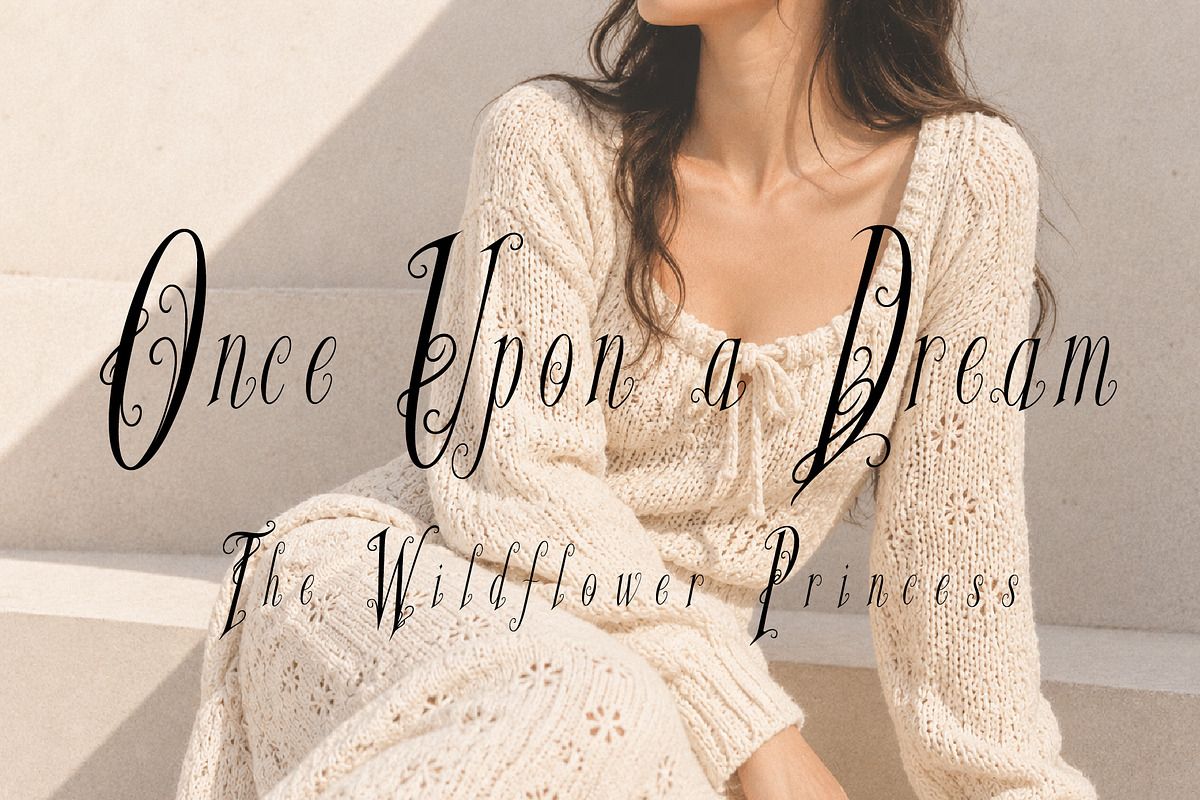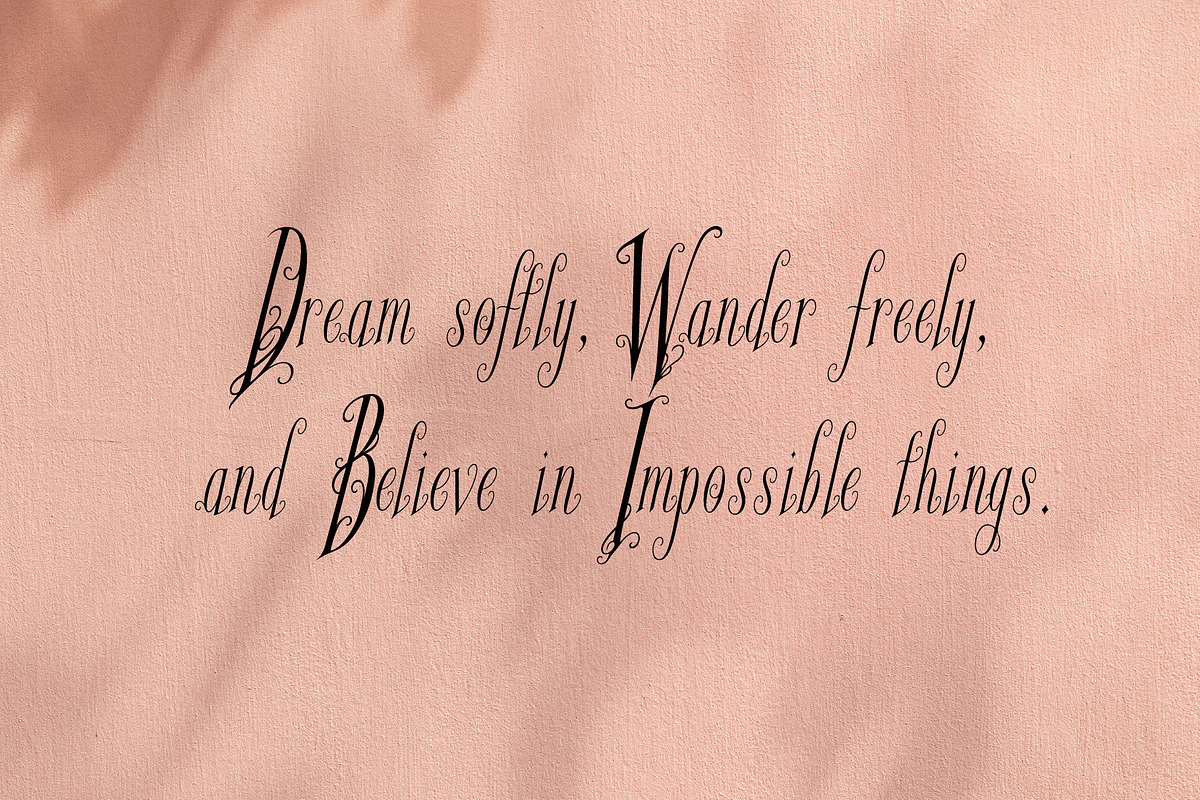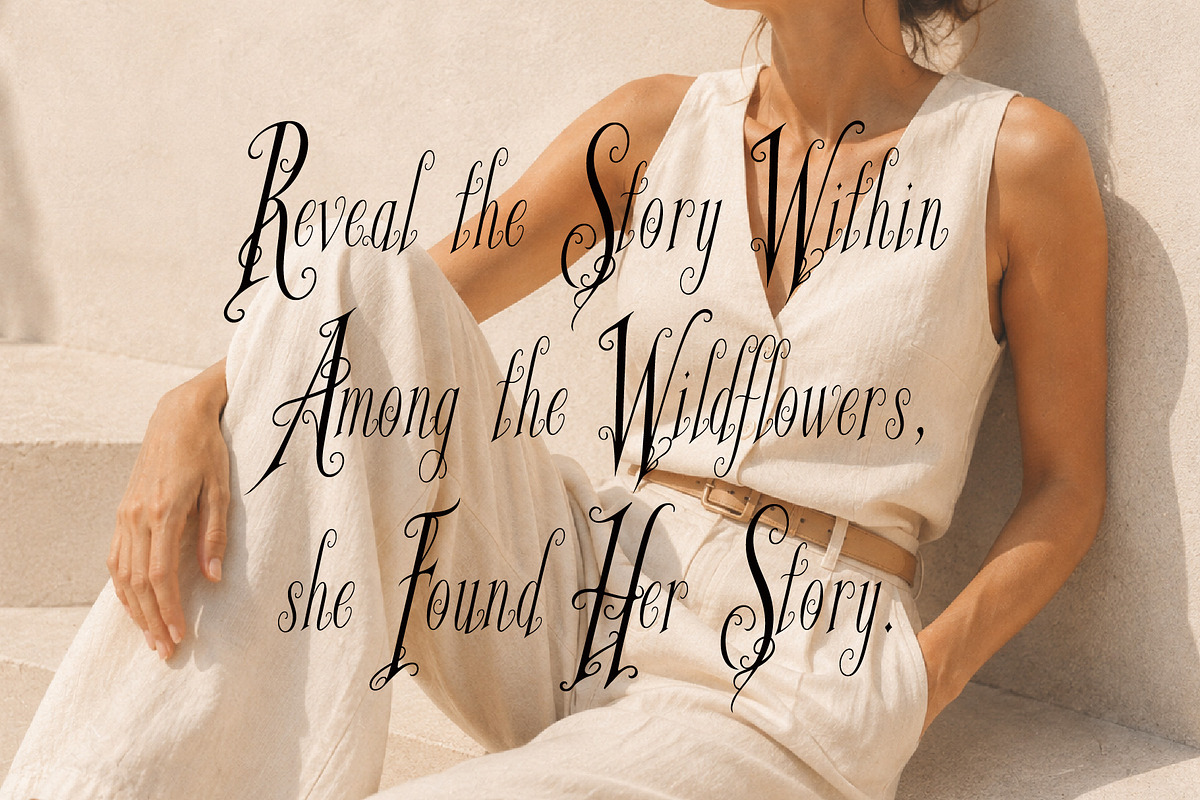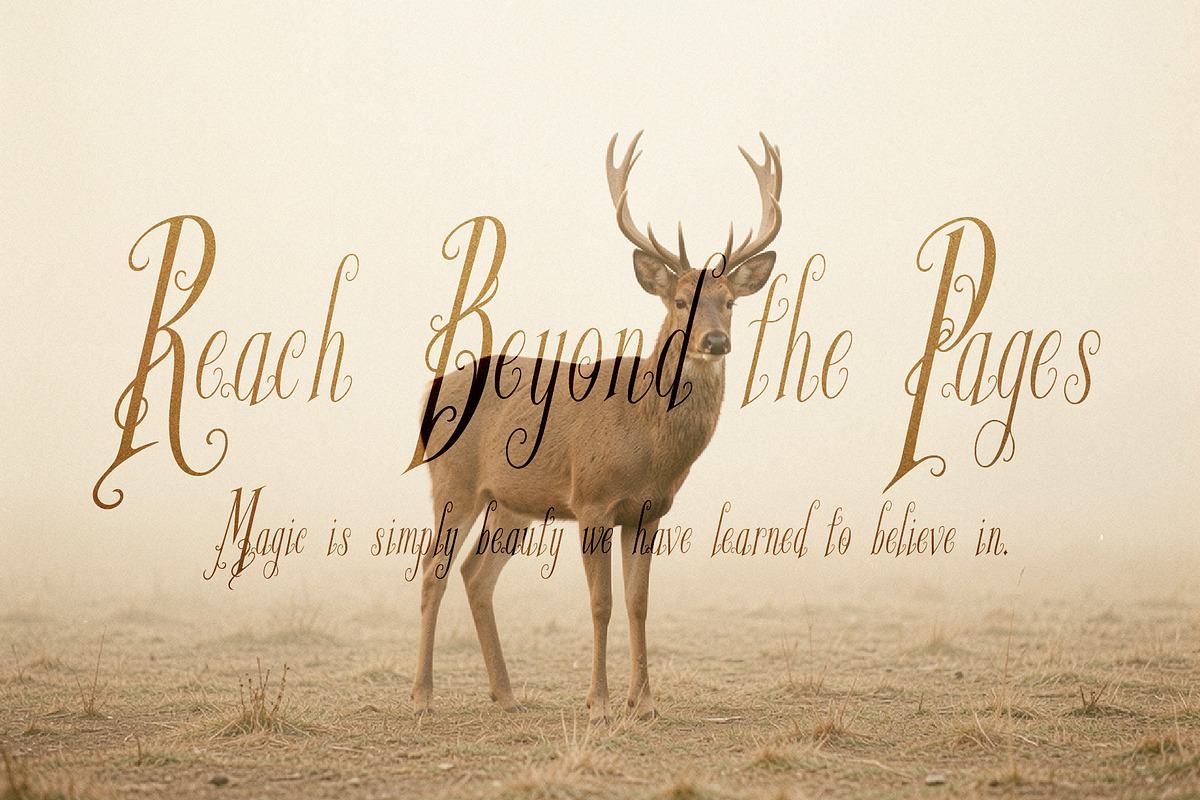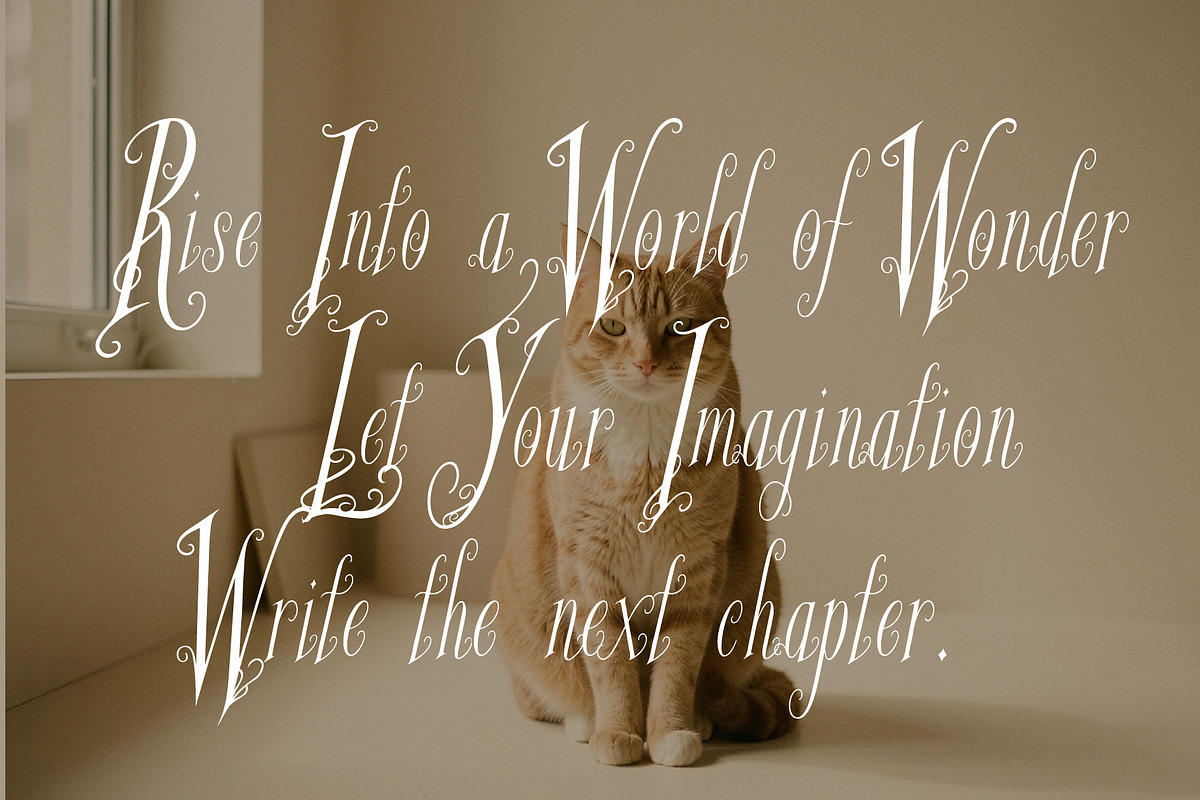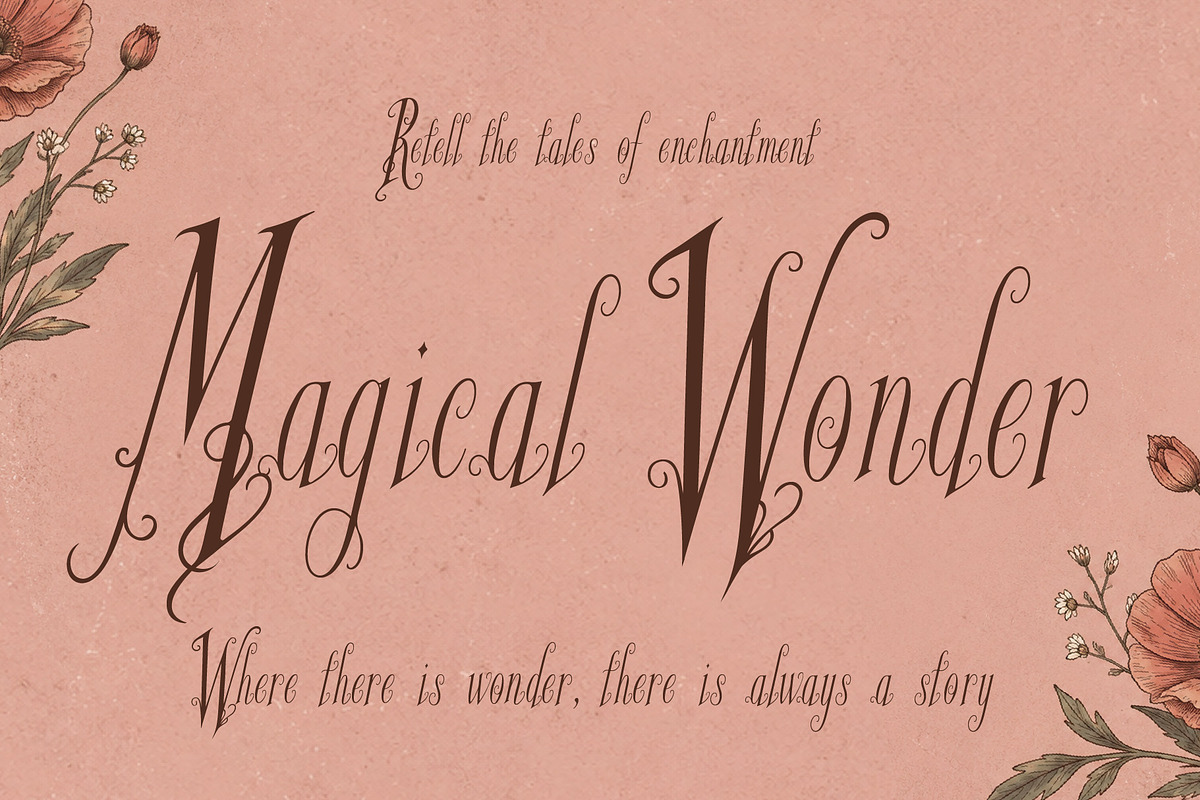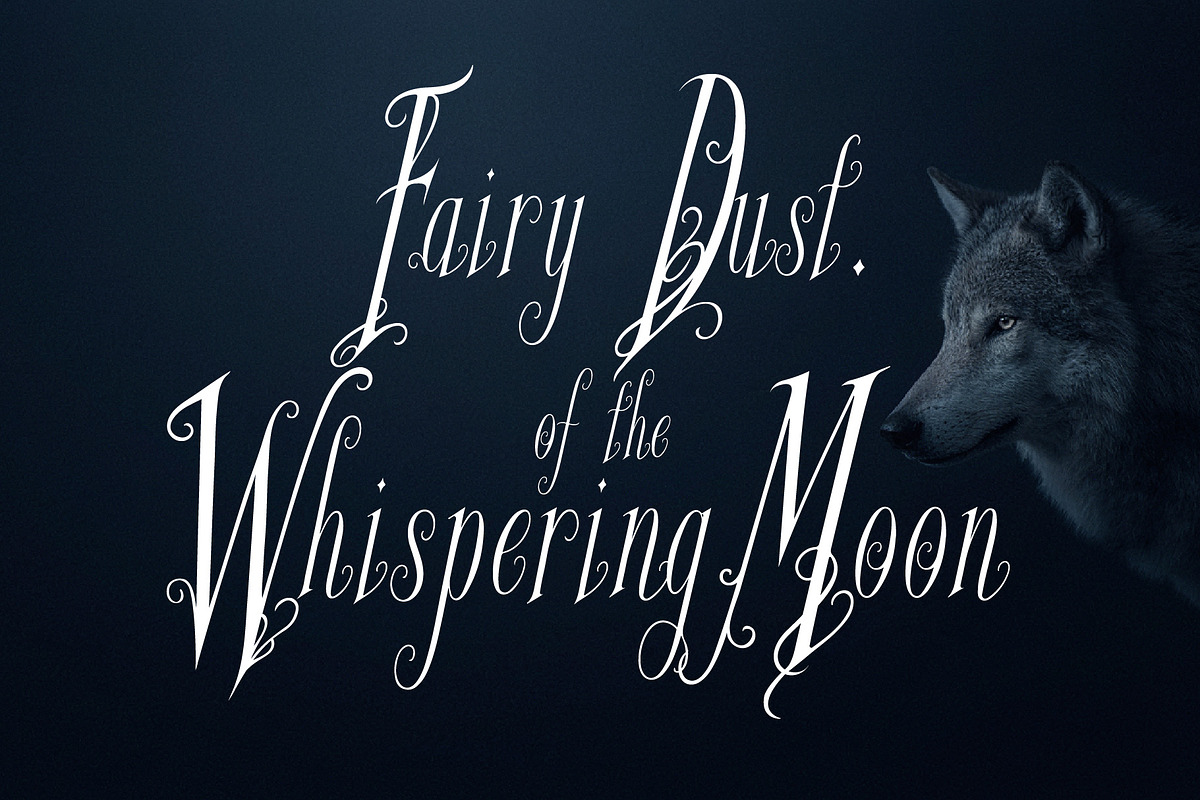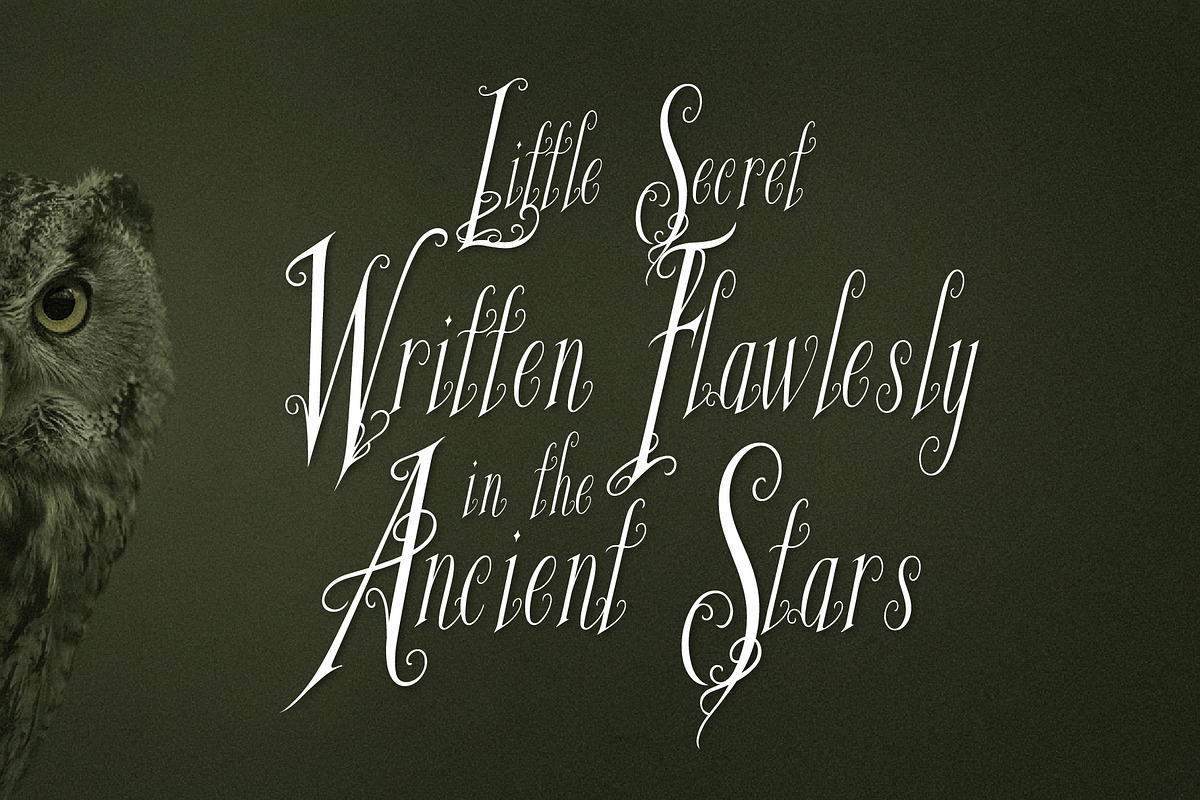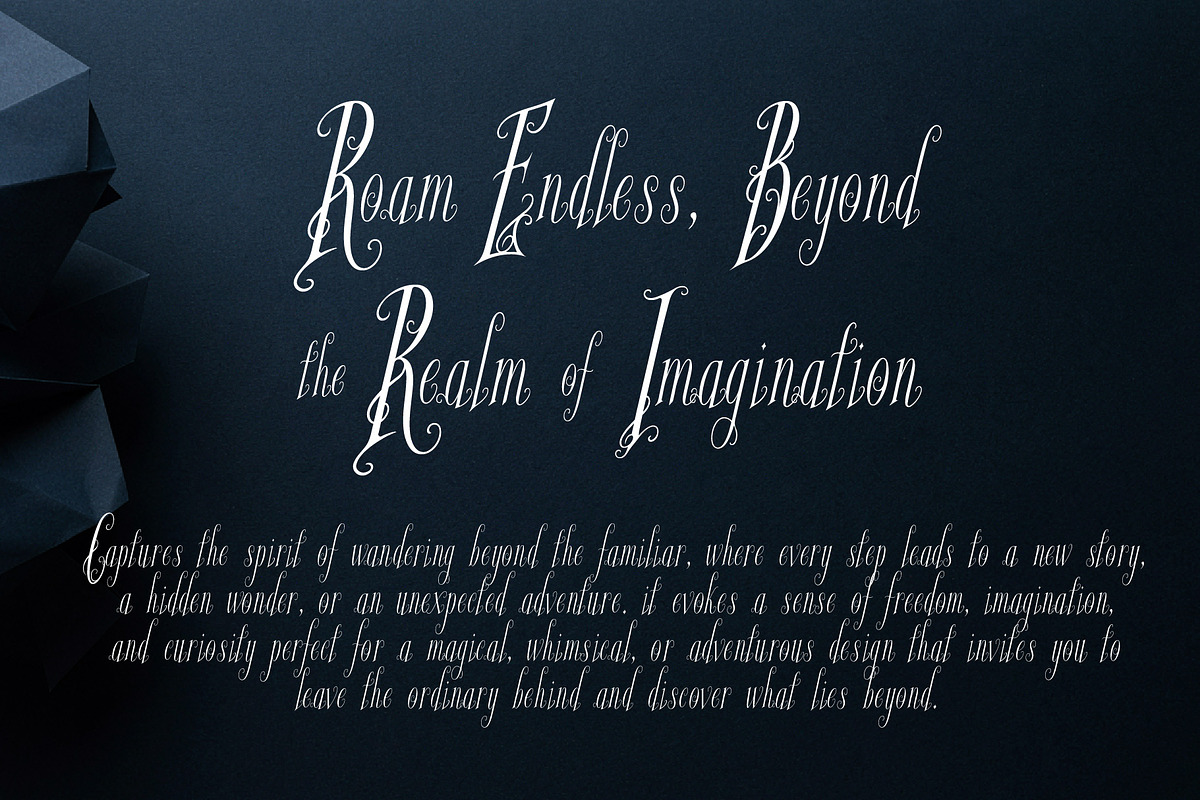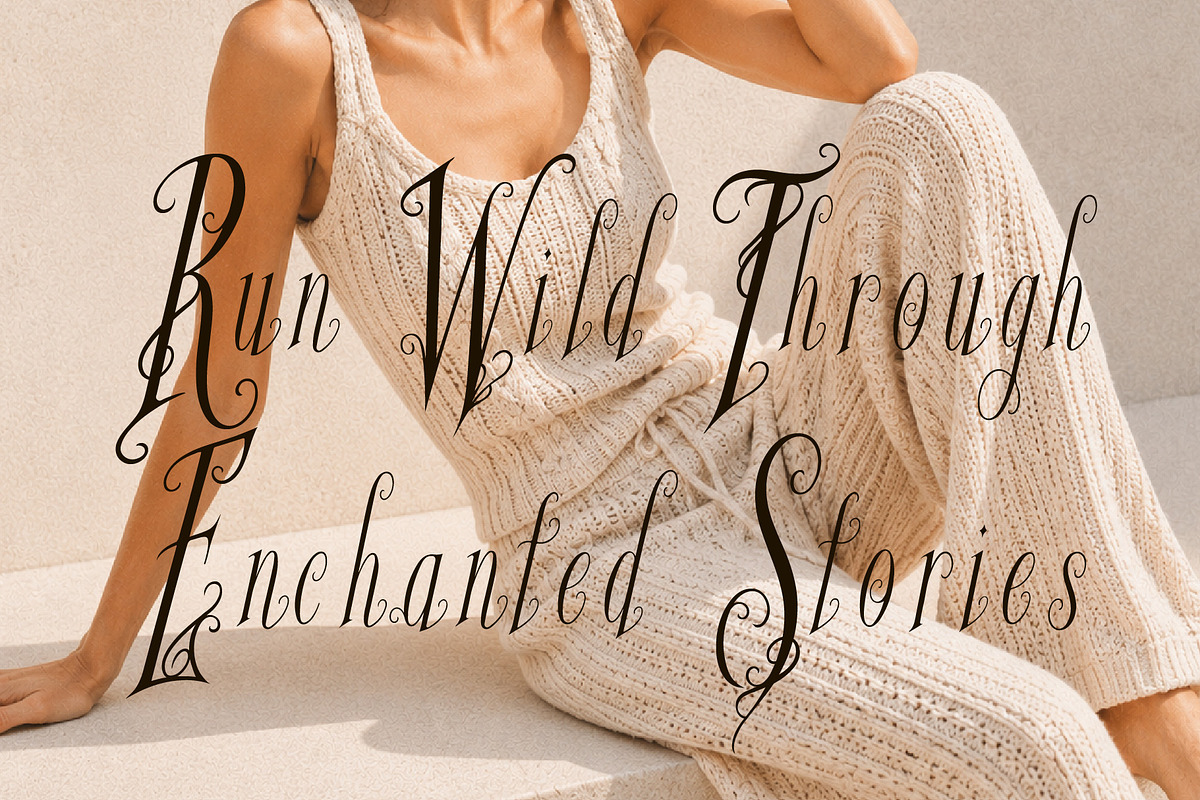
Glyphera Amber - Magical Story Font
Glyphera Amber is an elegant serif typeface infused with graceful cursive swirls, natural handwritten movement, and a touch of whimsical magic. Designed to feel like lettering discovered inside an enchanted storybook, it combines refined serif forms with delicate calligraphic details and expressive flourishes.
Perfect for fairy-tale book covers, magical branding, romantic stationery, wedding invitations, feminine logos, fantasy titles, poetry, editorial designs, packaging, and elegant storytelling projects.
With its premium yet organic character, Glyphera Amber brings a sophisticated handcrafted feeling to every word beautiful, dreamy, and just a little mysterious.
Perfect for: • Fairy tale & fantasy book covers • Magical story titles • Elegant branding & logos • Wedding invitations & stationery • Romantic editorial design • Poetry & literary projects • Beauty & feminine branding • Boutique packaging • Handcrafted products • Fantasy posters & invitations • Whimsical quotes and typography